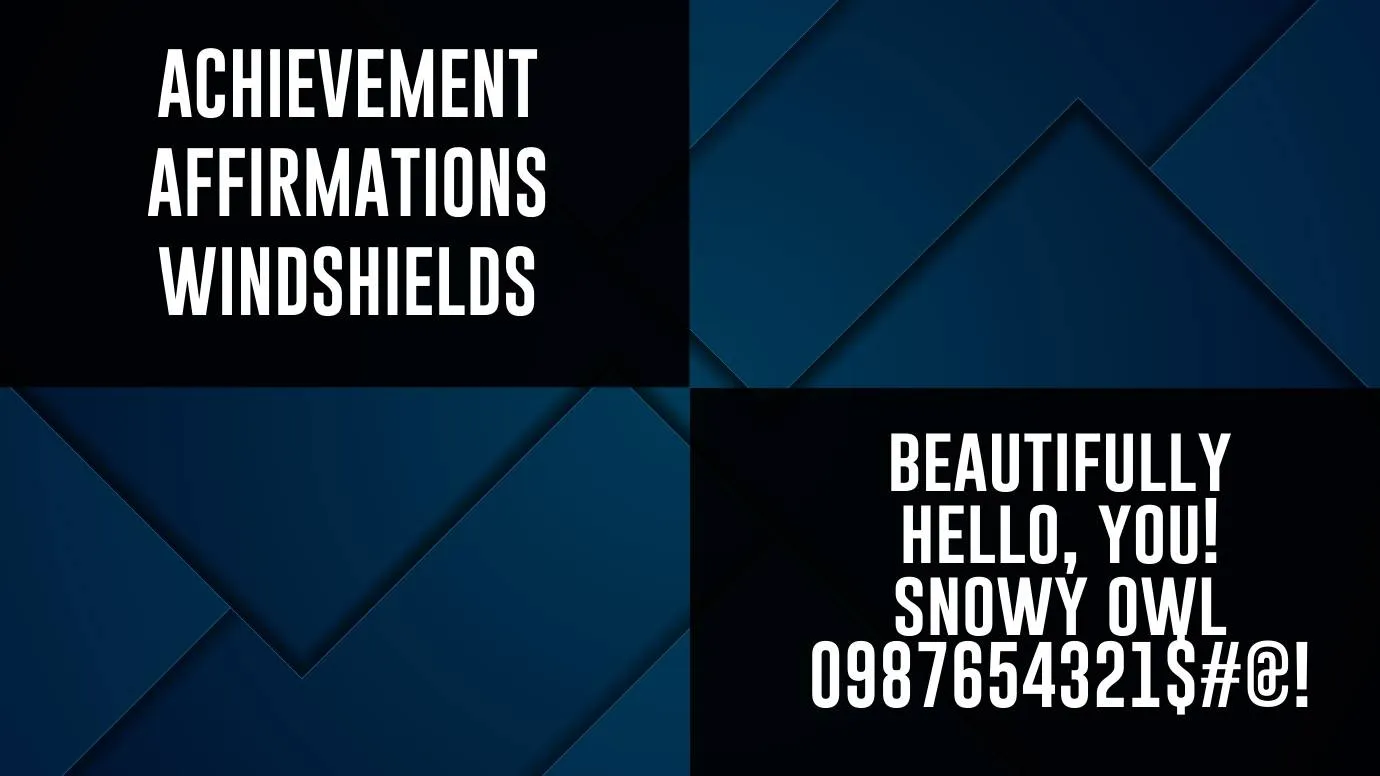
If you’re looking for a sans serif font with a clean, geometric design, Gobold Font is a great choice. The typeface includes support for extended Latin, Cyrillic, and Greek character sets, making it a versatile option for a variety of projects.
Gobold typeface has a set of characters including upper and lower case letters, numbers, and punctuation marks. This typeface is available in two weights, light and bold. The font was designed to be used as a display font and features a clean, geometric design with sharp corners.
Designer of Gobold Font
This attractive and artistic typeface is designed by an Indonesian typeface designer Situjuh Nazara for the foundry 7N Type in 2013. He is a famous typeface designer and designed a lot of typefaces.
This font style is designed with a unique and regular style. This single attractive style is a mixture of various features, including capital and small alphabet, digits, special characters, punctuations, glyphs, symbols, and a lot of language support.
| Name | Gobold Font |
| Designer | Situjuh Nazara |
| Foundry | 7N Types |
Is Gobold Font Handwritten font?
Gobold typeface is not a handwritten font. The font has a clean, geometric design with sharp corners.
Is Gobold typeface good for headings?
Gobold typeface is a good choice for headings and display purposes. The font includes support for extended Latin, Cyrillic, and Greek